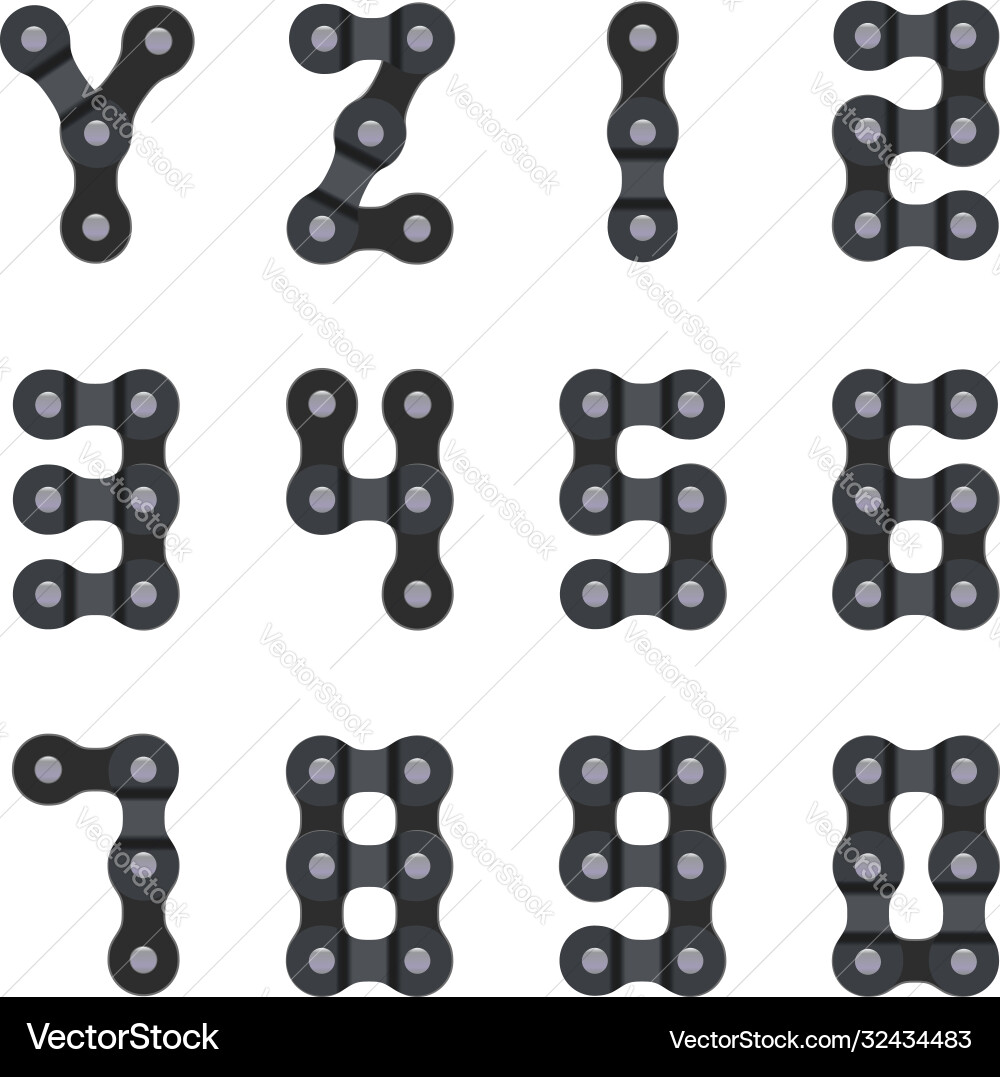
Every font is free to download! Perfect for bold designs, adds an industrial, edgy vibe to your work. ️ this font has been downloaded 400+ times. ️ customize your own preview on.
Bike Chain Font Free - Click to find the best 36 free fonts in the bike style. Web the bike chain font contains 87 beautifully designed characters. Web looking for chain fonts? ️ this font has been downloaded 400+ times. Every font is free to download!
Bike Chain Font Free - Perfect for bold designs, adds an industrial, edgy vibe to your work. Fk chain by jum usota. ️ customize your own preview on. Click to find the best 36 free fonts in the bike style. Web the bike chain font contains 87 beautifully designed characters.
Bike Chain Font Free - Click to find the best 36 free fonts in the bike style. Every font is free to download! Web the bike chain font contains 87 beautifully designed characters. Web unleash creativity with free bike chain fonts. Web free download of bike chain font.
Bike Chain Font Free - Fk chain by jum usota. Perfect for bold designs, adds an industrial, edgy vibe to your work. Released in 2021 by spideraysfonts and. Web free download of bike chain font. Moreover, you can embed it to your website with.
Bike Chain Font Free - Web looking for bike fonts? Every font is free to download! Web the bike chain font contains 87 beautifully designed characters. Click to find the best 36 free fonts in the bike style. Every font is free to download!
Bike Chain Font Free - Web looking for chain fonts? Web unleash creativity with free bike chain fonts. Web looking for bike fonts? Web the bike chain font contains 87 beautifully designed characters. Fk chain by jum usota.
Bike Chain Font Free - Every font is free to download! Web looking for bike fonts? Fk chain by jum usota. 52,505 downloads (1 yesterday) free for personal use. Web unleash creativity with free bike chain fonts.
Bike Chain Font Free - Every font is free to download! Web download and install the bike chain font for free from ffonts.net. ️ customize your own preview on. Web unleash creativity with free bike chain fonts. ️ this font has been downloaded 400+ times.
Bike Chain Font Free - Every font is free to download! Click to find the best 36 free fonts in the bike style. Web the bike chain font contains 87 beautifully designed characters. Fk chain by jum usota. Web looking for chain fonts?
Bike Chain Font Free - Released in 2021 by spideraysfonts and. Web the bike chain font contains 87 beautifully designed characters. Web looking for chain fonts? Web download and install the bike chain font for free from ffonts.net. Web unleash creativity with free bike chain fonts.